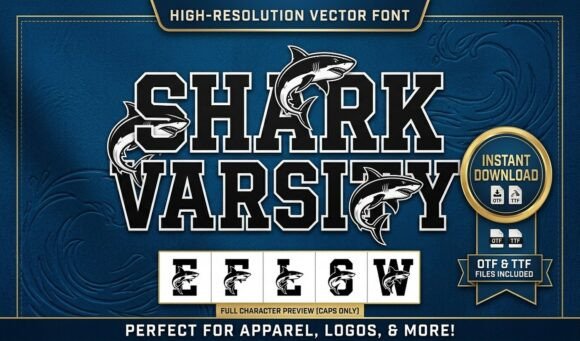
Introduction to Shark Varsity Font
Do you remember the rush of adrenaline when you’re working on a project and everything comes together perfectly? The colors pop, the design flows, and you can’t wait to share it with the world. That’s what happens when you use the right design resource – and the Shark Varsity Font is a game-changer.
As a designer, you’re always on the lookout for unique and high-quality typography that will give your creative project an edge. And when it comes to sports-themed designs, the Shark Varsity Font is the ultimate winner. With its bold, aggressive display font and stunning stencil-style great white shark illustrations, this font is a knockout – literally.
Key Features of Shark Varsity Font
- High-quality design resource for creative projects, perfect for logos, signage, and more.
- Includes 6 unique styles, each with its own distinct character and flair.
- Features a bold, modern design that’s perfect for making a statement in any creative project.
Honest Review: Shark Varsity Font
I recently came across the Shark Varsity Font, and I was excited to dive in and see what it had to offer. As a designer, I’m always on the lookout for high-quality design resources that can elevate my creative projects.
- ✨ Clean and modern design aesthetic
- ✨ Great for creating bold headings and titles
One of the standout features of the Shark Varsity Font is its versatility. It works well for a variety of creative projects, from graphic design and branding to digital media and print materials.
- ⚠️ Limited font weights and styles
- ⚠️ Not ideal for text-heavy content due to its bold and condensed design
Overall, I’m impressed with the Shark Varsity Font. It’s a high-quality design resource that can add a touch of modern sophistication to your creative projects. While it may have some limitations, it’s definitely worth considering for your next design project.
Shark Varsity Font is commonly used in various design projects, including:
- Sports branding and merchandise.
- Education and academic materials.
- Marketing and advertising campaigns.